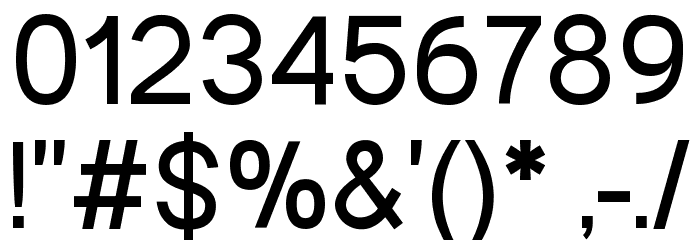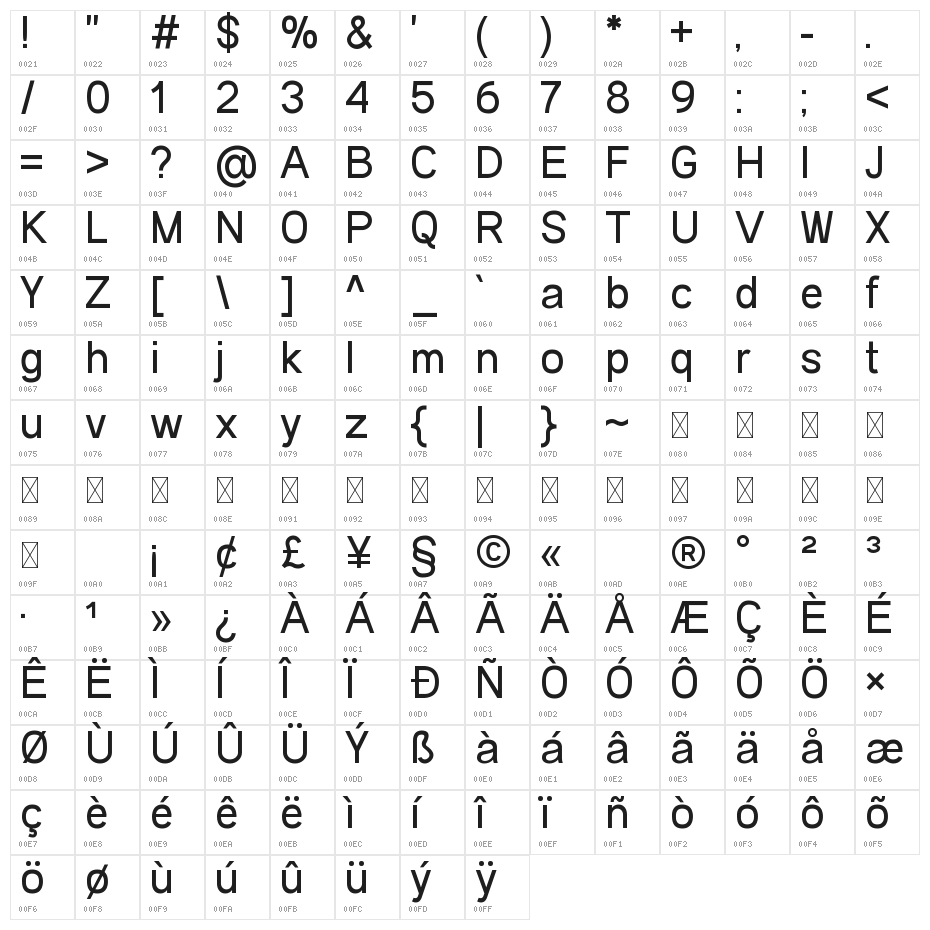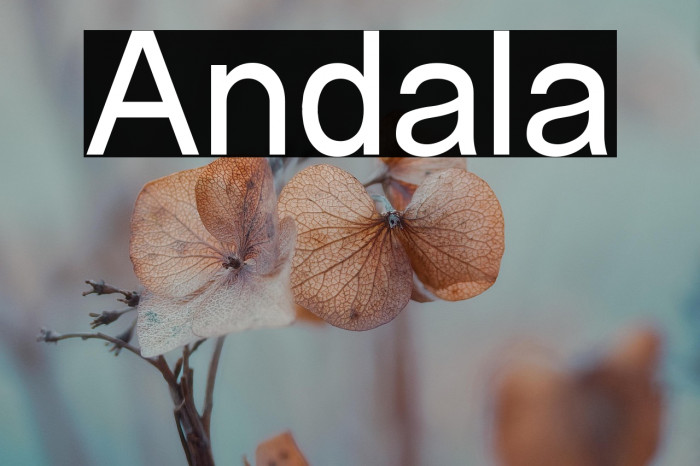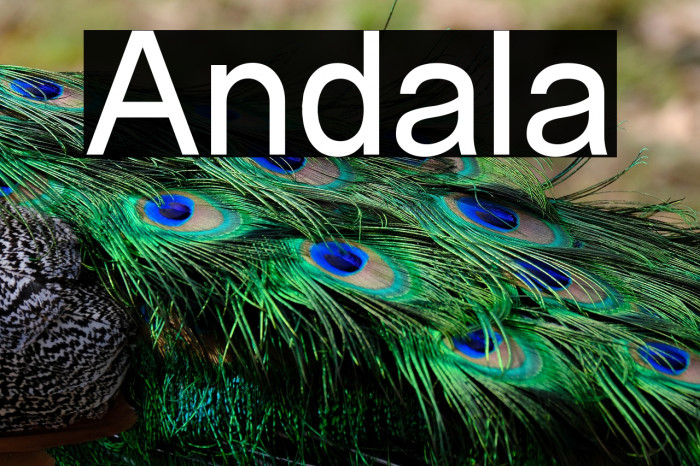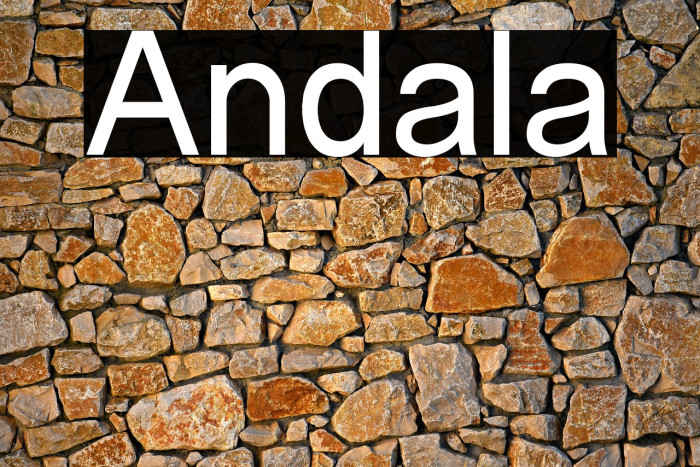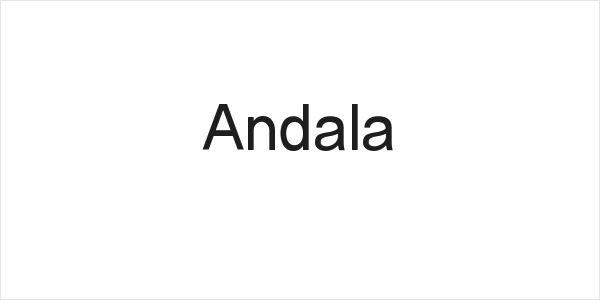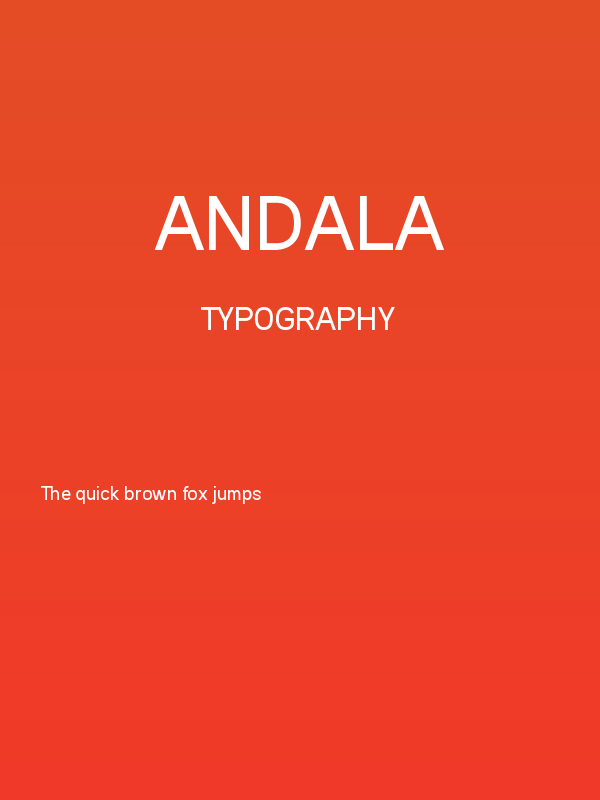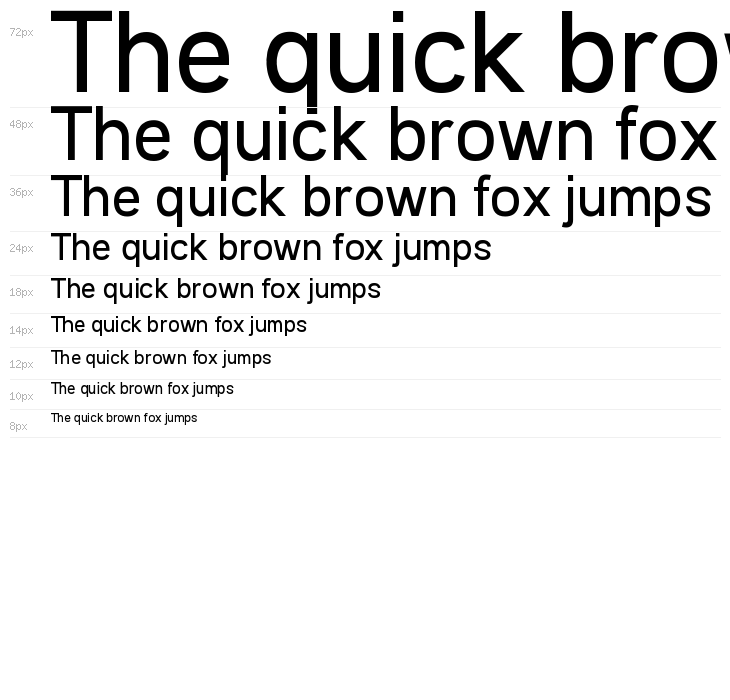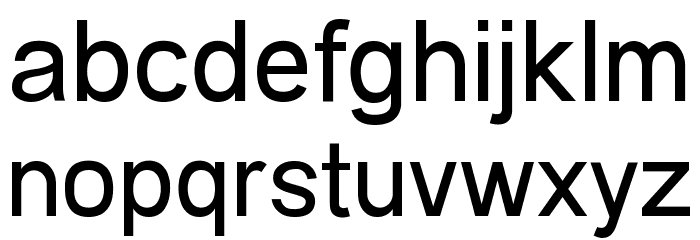
Andala Font
Andala Description
This font features a clean and modern sans-serif design, characterized by its simplicity and readability. The letters are evenly spaced with a consistent stroke width, providing a balanced and harmonious appearance. The uppercase and lowercase letters maintain a uniform height, contributing to its legibility. The numerals are clear and distinct, making them easy to read. Special characters are well-defined, ensuring versatility in various applications. This font's straightforward style makes it suitable for a wide range of uses, from digital interfaces to print media.